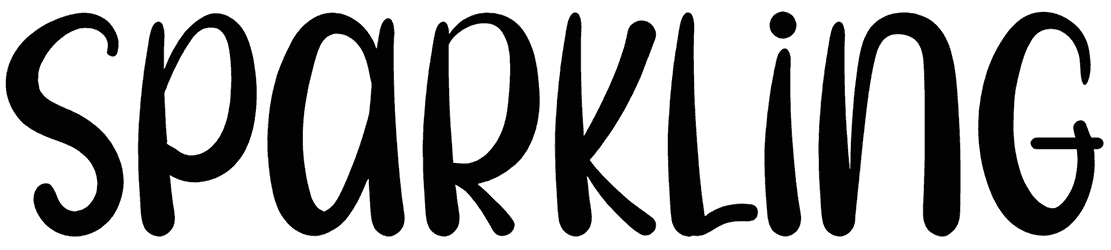
Sparkling Font
Let’s use a funny and playful style for your words this time and give your design a cute vibe. This handwritten font with its unique hand lettering is a distinct choice for your happy-themed projects. Sparkling font doesn’t have a full cover of lowercase and uppercase letters, but it has enough characters to illustrate lots of creative designs, namely apparel, mugs, planners, titles, etc.